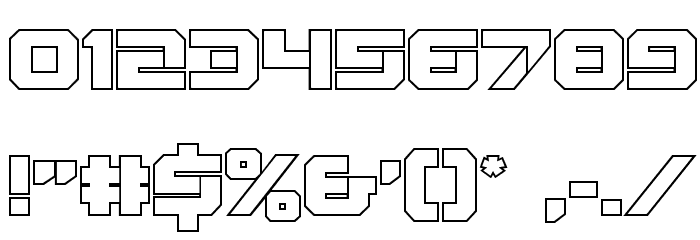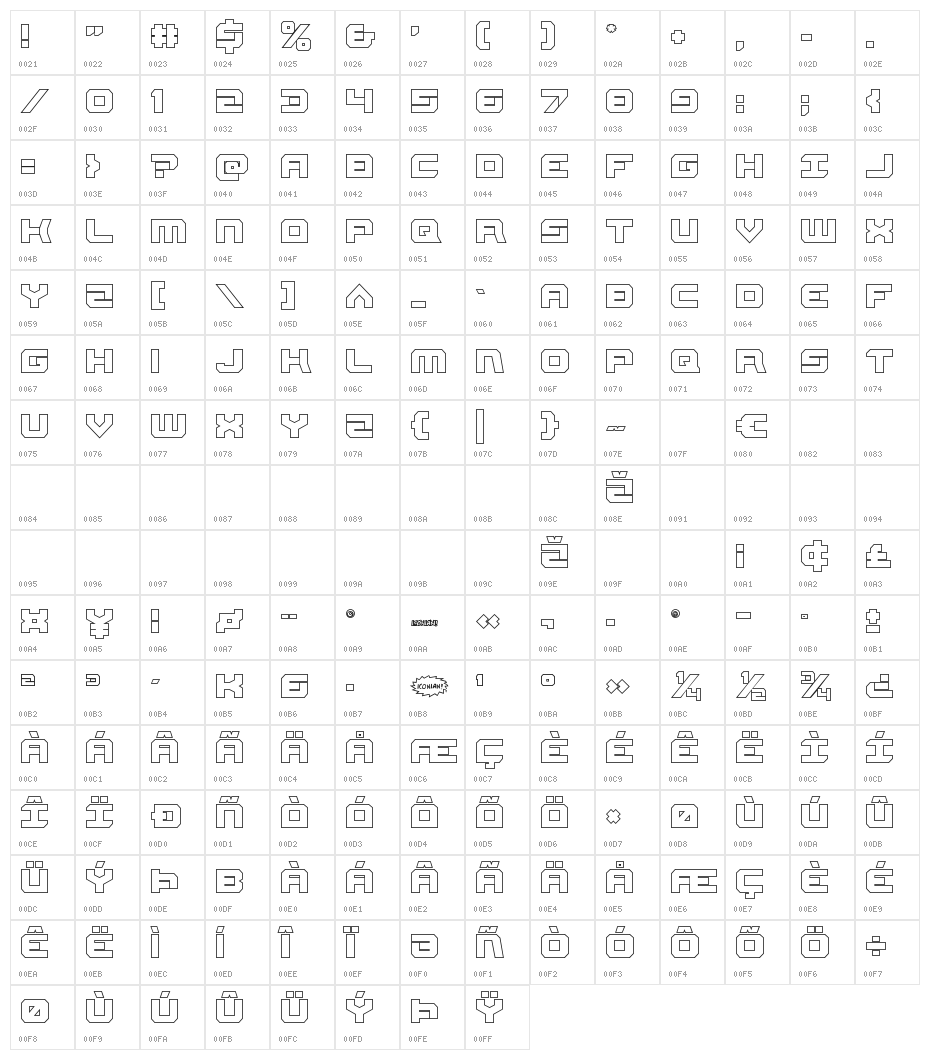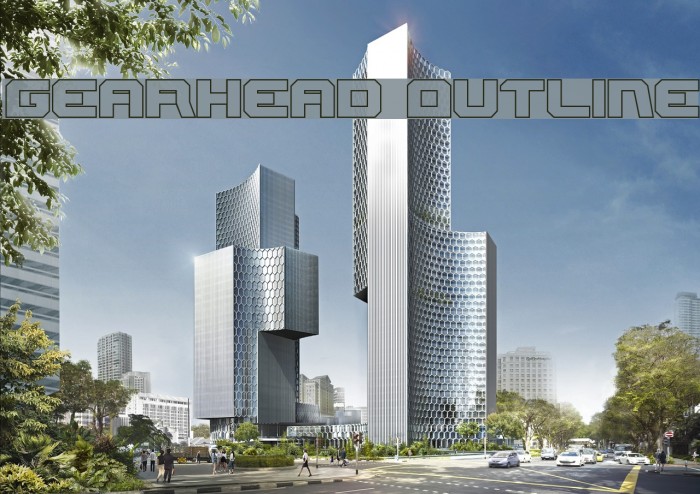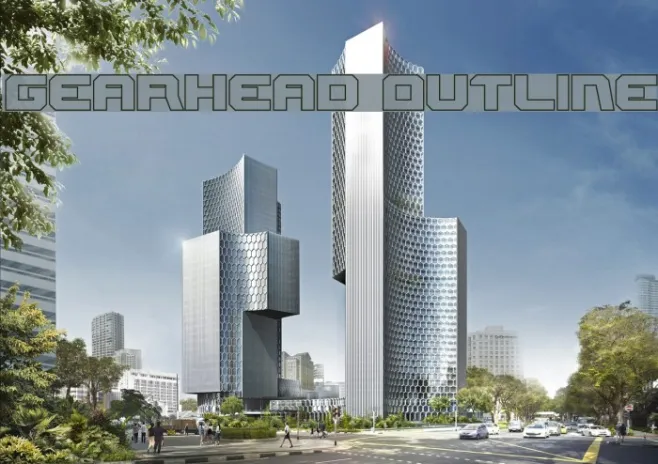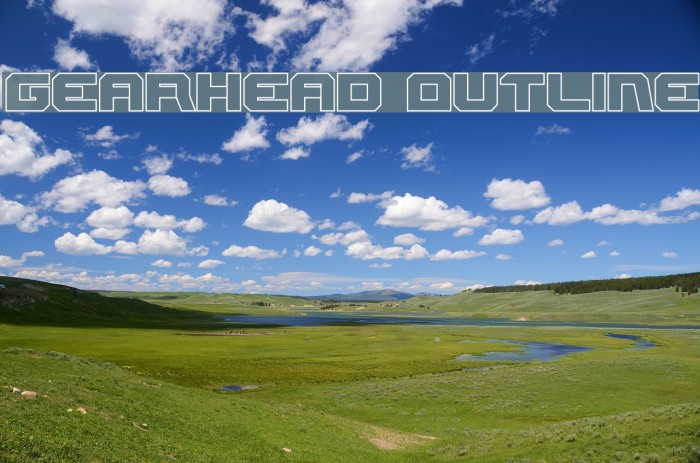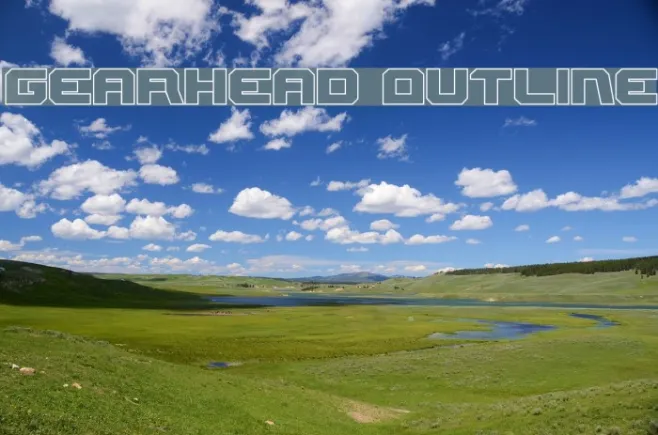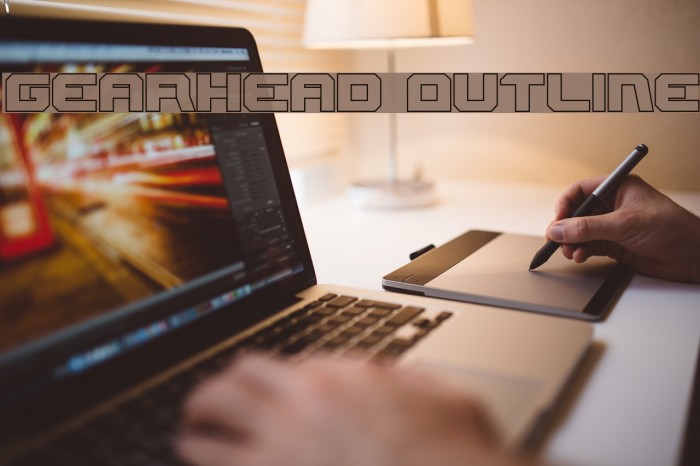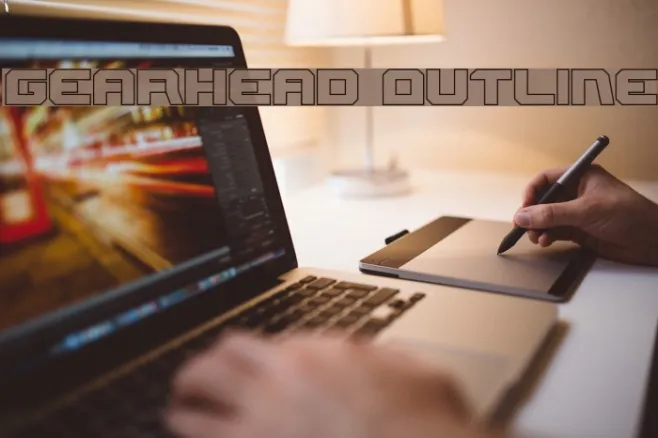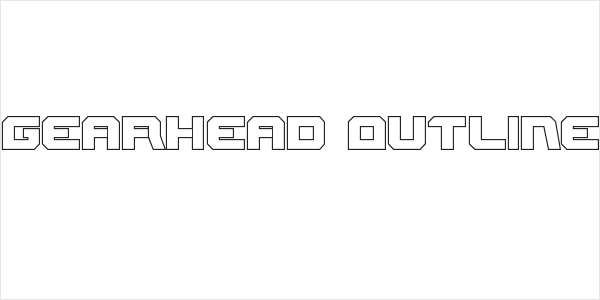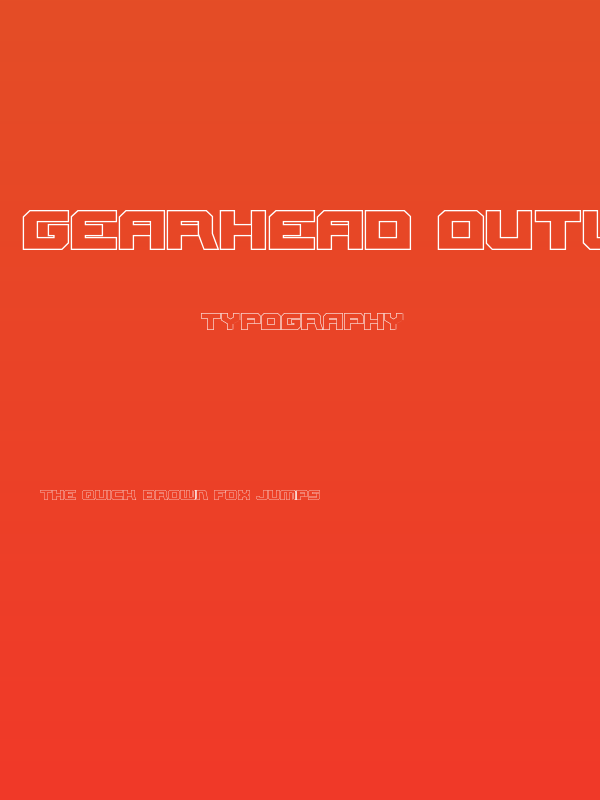
Gearhead Outline Font
Gearhead Outline Description
This font features a bold, geometric outline style that gives it a futuristic and industrial appearance. The characters are constructed with sharp angles and straight lines, creating a sense of precision and modernity. Each letter and number is outlined, providing a hollow effect that enhances its visual impact. The font maintains consistent line thickness throughout, contributing to a uniform and cohesive look. The angular design is reminiscent of mechanical or technological themes, making it suitable for projects that require a strong, contemporary aesthetic.
Proposed ProjectsIdeal for technology branding, sci-fi movie posters, video game titles, and industrial-themed designs.